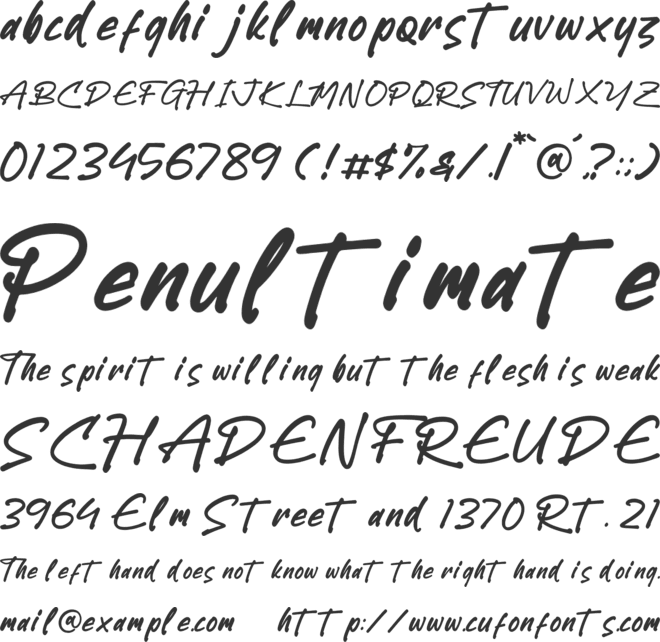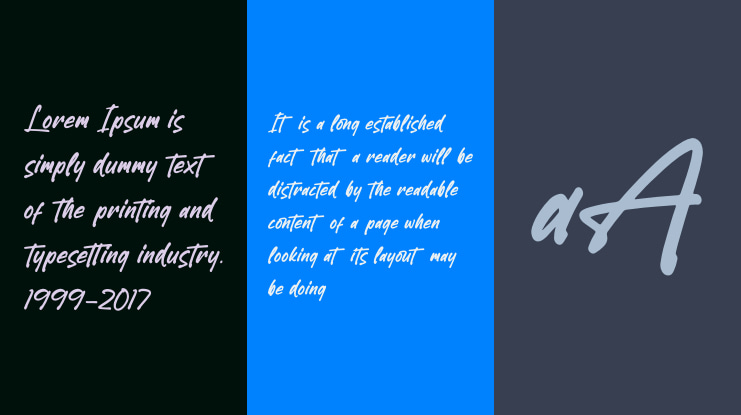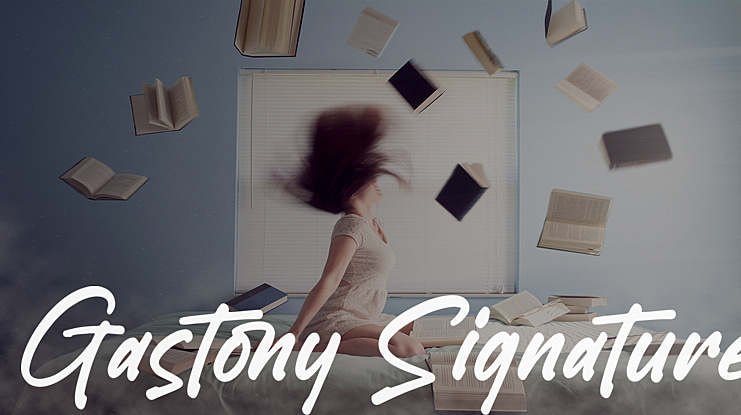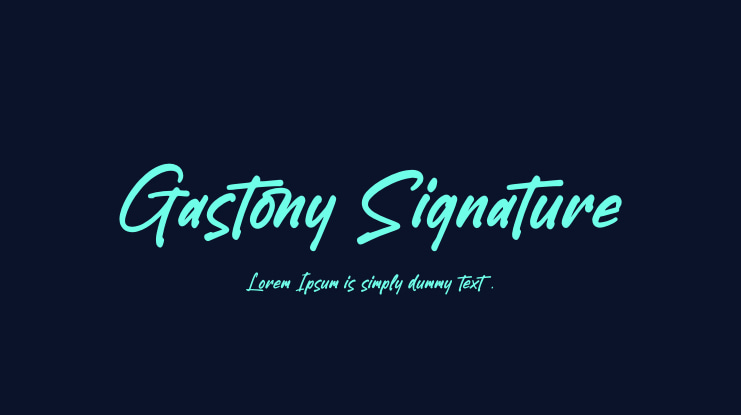
It’s modern signature script font, suitable for any projects such as: logos, branding projects, homeware designs, product packaging, mugs, quotes, posters, shopping bags, t-shirts, book covers, name card, invitation cards, greeting cards, label, photography, watermark, special events, and all your other lovely projects that need a beautiful script taste.